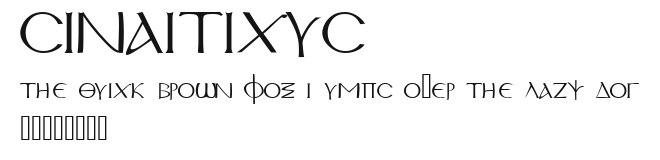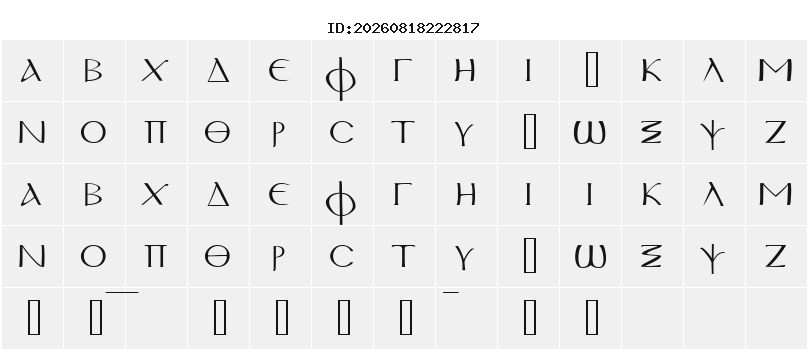
Sinaiticus Preview
• Font Name: Sinaiticus
• Full Font Name: Sinaiticus
• PostScript Name: Sinaiticus
• Character Count: 68
About Sinaiticus.ttf
Sinaiticus.ttf is a modern, elegant sans-serif font designed for ultimate readability and visual harmony. Perfect for branding, headlines, web design, and print materials.